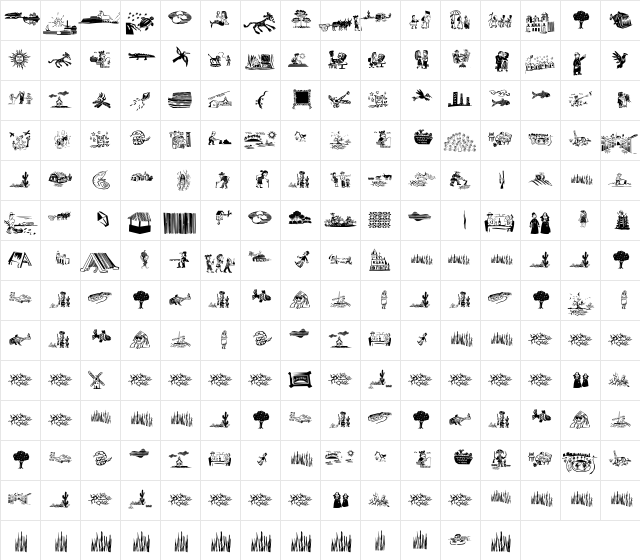
Complete Ochent Silibrina Regular glyph index. Displaying only characters natively supported by Ochent Silibrina Regular font.
Ochent Silibrina is a composed and adaptable typeface that performs quietly and consistently across a wide range of design contexts.